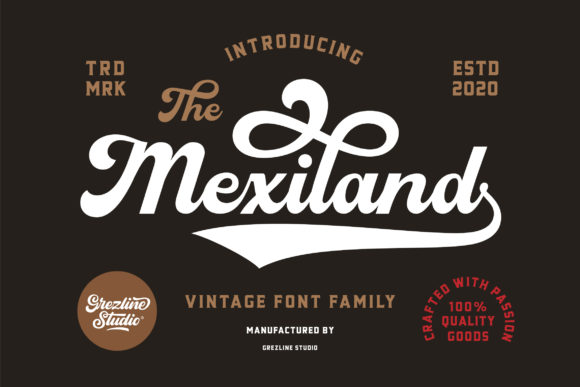
Flex your creativity with Mexiland, an audacious script font designed to set your designs apart. This charismatic font oozes strength, confidence, and vivacity, adding a layer of rich history to all your endeavors. Mexiland's vintage charm will transport your projects back in time while captivating your audience with its elegance.
Journey through a myriad of possibilities with Mexiland. Its bold strokes and dynamic curves make it the perfect choice for captivating headlines, eye-catching logos, and mesmerizing branding. Elevate your social media posts, bring posters to life, and design stunning advertisements that leap off the page. Mexiland's unique personality shines through in every letter, leaving an unforgettable impression that lingers long after the last word is read.
Unleash your creative flair with Mexiland. Whether you're a seasoned designer or just starting your artistic journey, this versatile font will become your trusty companion. Its comprehensive character set, complete with upper and lowercase letters, numbers, and an array of punctuation, provides endless opportunities to express yourself. Harness Mexiland's power to transform ordinary designs into masterpieces that radiate character and leave an enduring impact.
Mexiland is not just a font; it's a gateway to a world of creativity and self-expression. Embrace its charm, let your imagination soar, and watch as your projects bloom into extraordinary creations. With Mexiland by your side, the possibilities are infinite. Unleash your inner artist and embark on a typographic adventure that will leave you breathless.